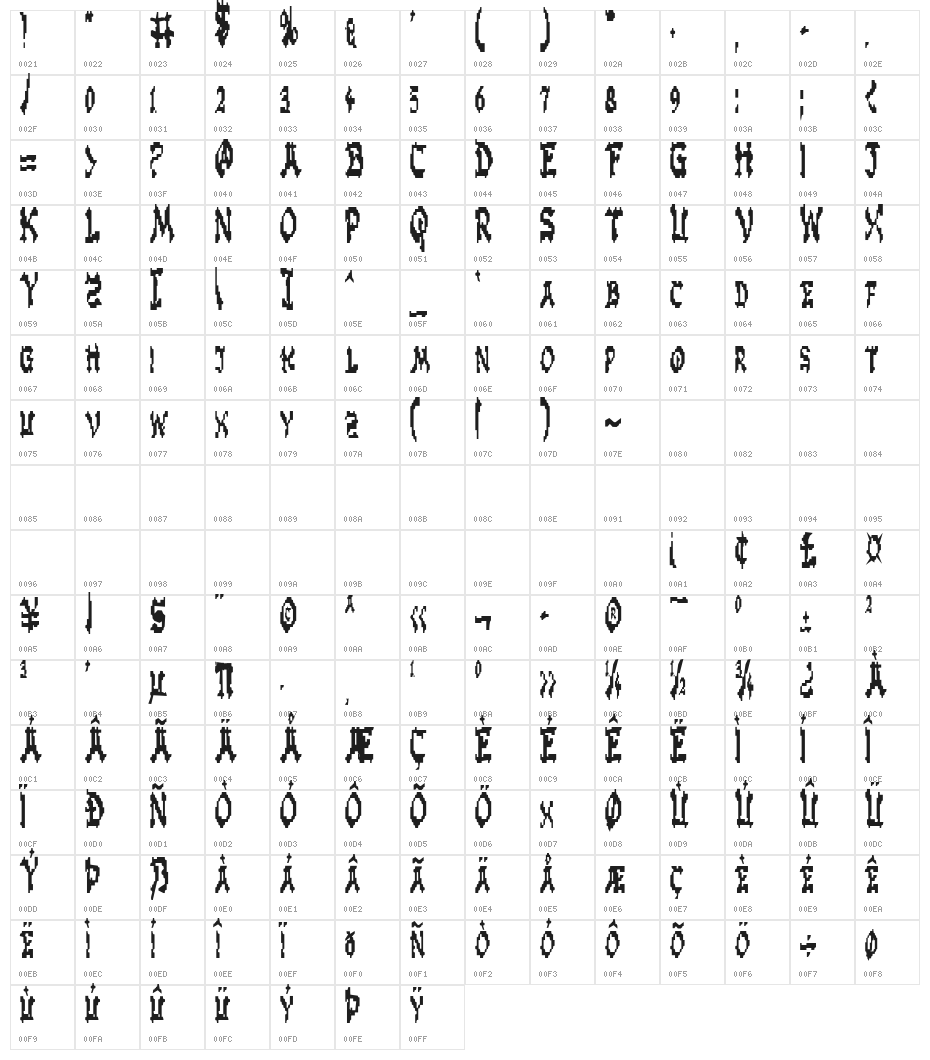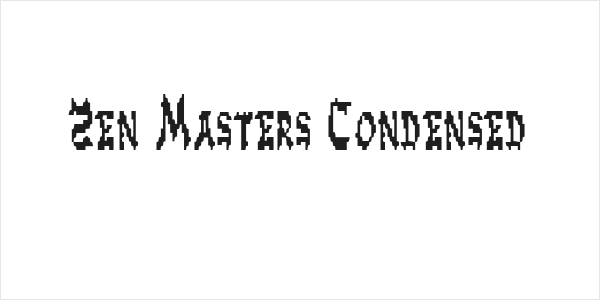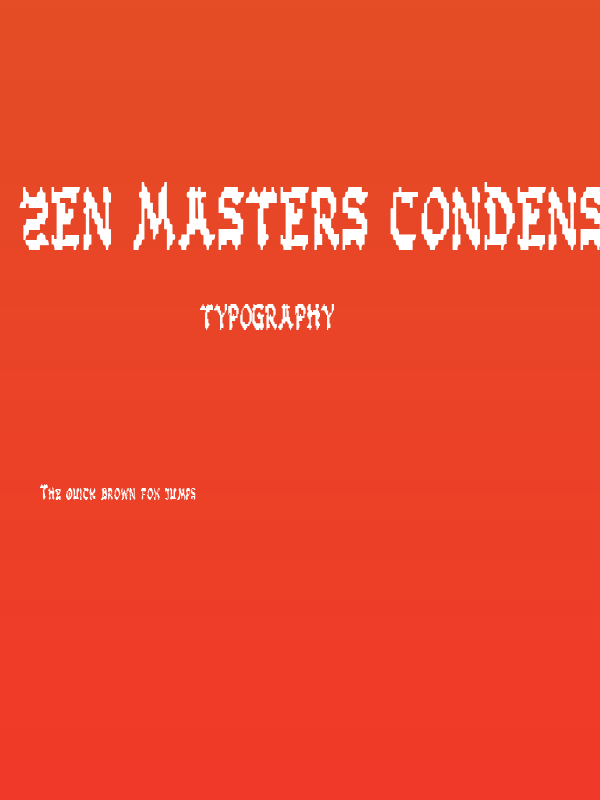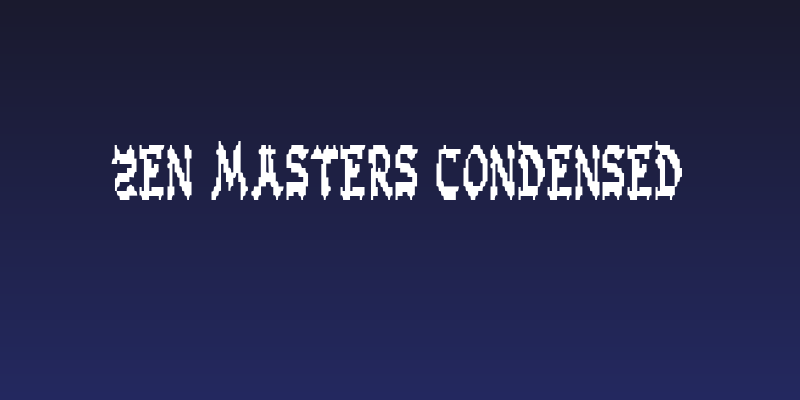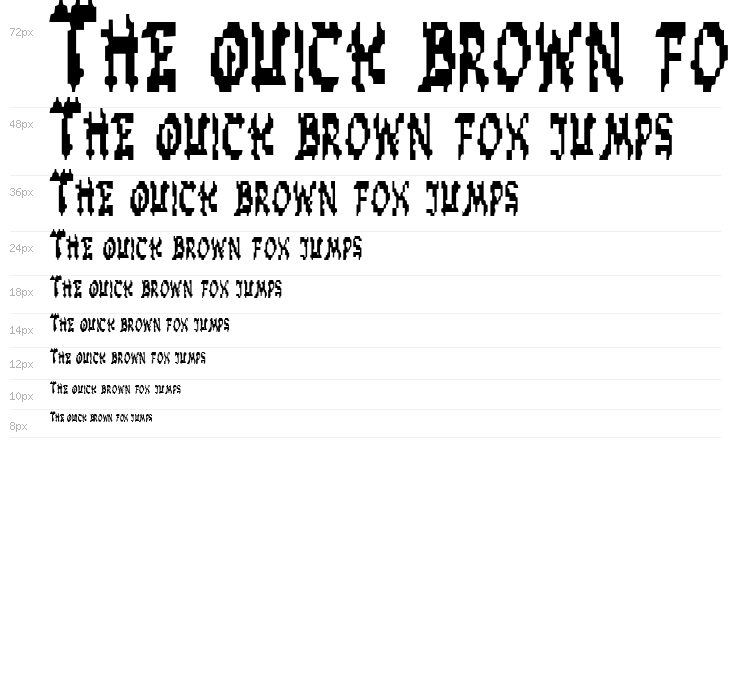
Zen Masters Condensed Font
Zen Masters Condensed Description
This font features a bold and condensed style with a distinct, edgy appearance. The characters are designed with sharp, angular edges and a blocky structure, giving it a modern and somewhat aggressive look. The uppercase and lowercase letters maintain a consistent height, contributing to its condensed nature. The numbers and special characters follow the same design principles, ensuring uniformity across the typeface. This font's unique style makes it stand out, ideal for projects that require a strong visual impact.
| Proposed Projects | Ideal for posters, album covers, video game titles, and branding that requires a bold statement. |